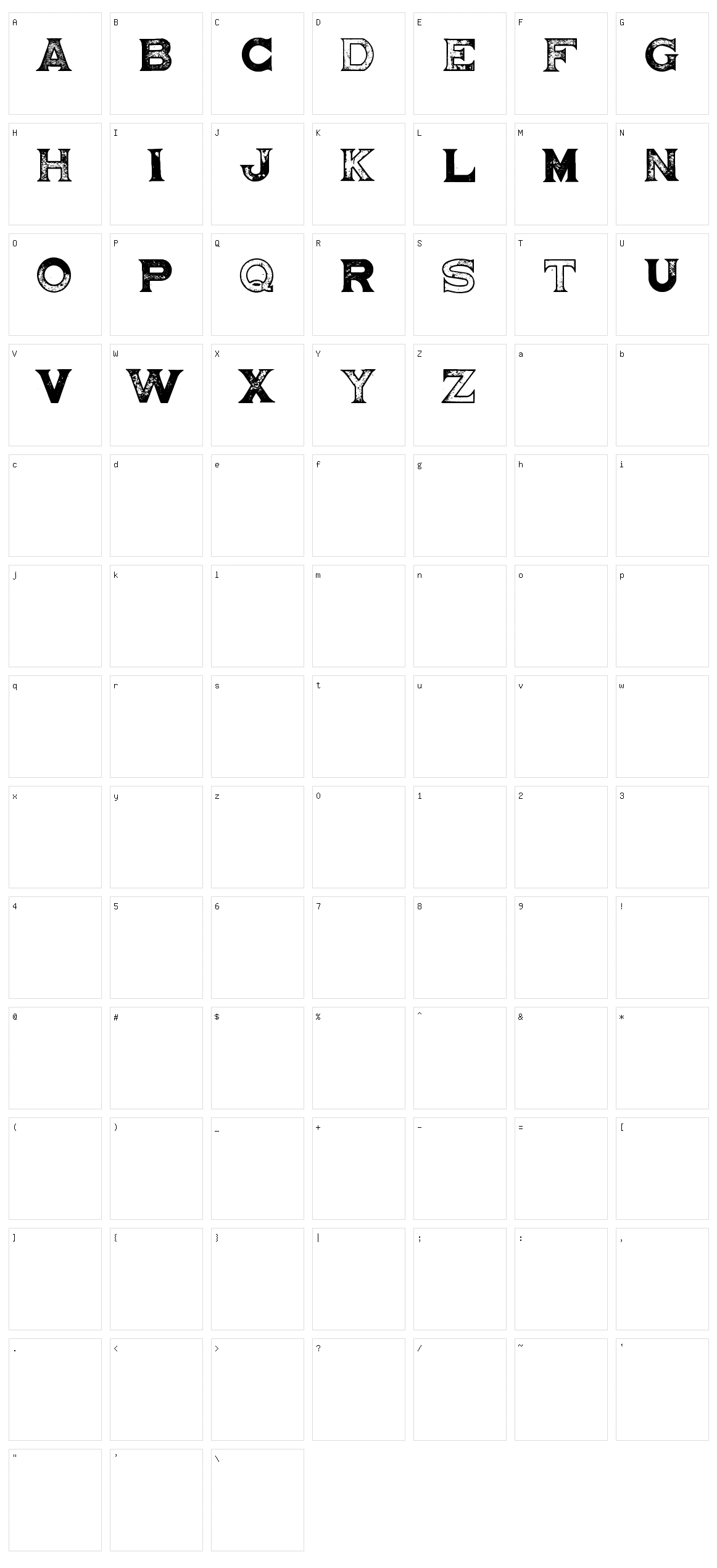
The free font Brighton Pier is carefully designed by imagex, showcasing a thoughtful balance of creativity and usability and falls under the Eroded font style. When you download the ZIP file, it contains only 68.58 KB of font files, making it lightweight and quick to download. Please review the license details below to understand permitted usage and distribution rights. If license information is not available, we recommend using this font for personal projects only or contacting the author directly for commercial usage permissions.